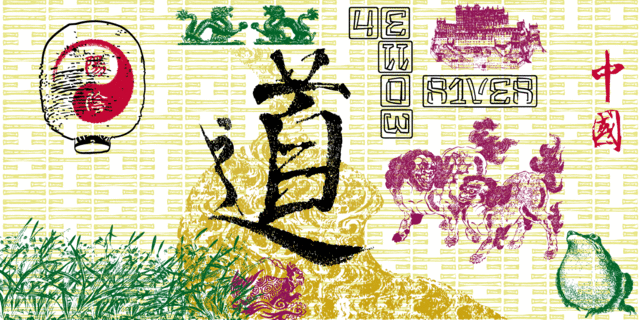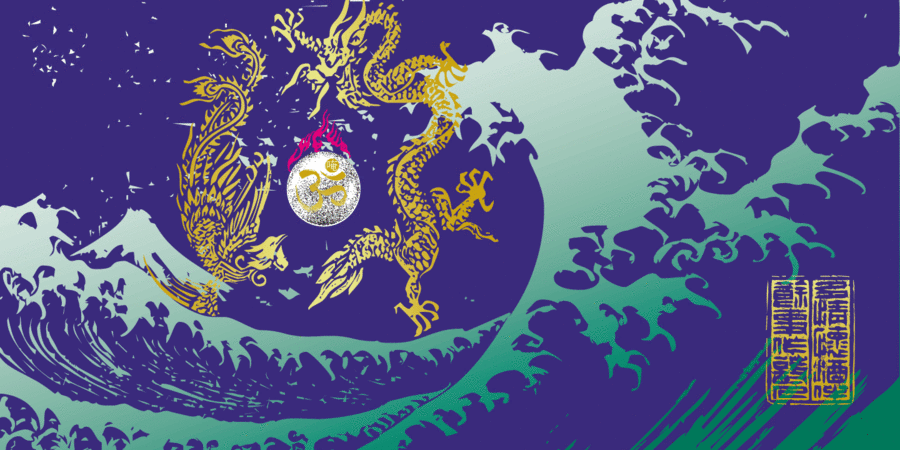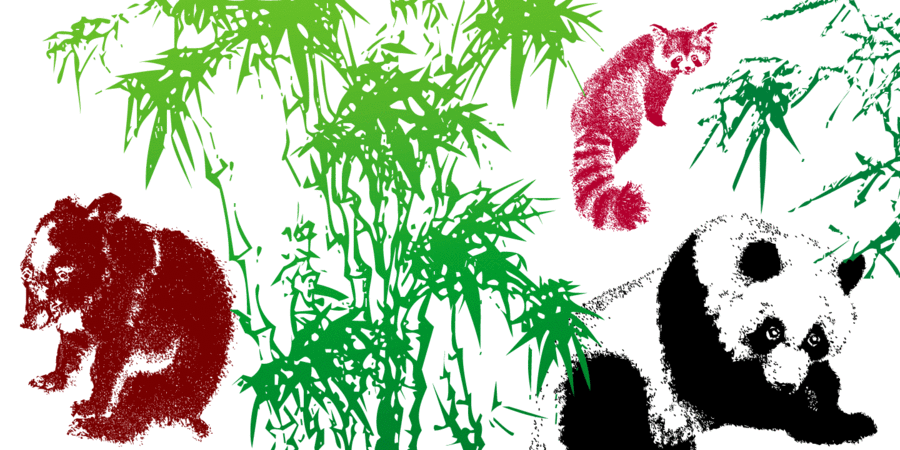
Modern pi fonts are a revival of the print tradition of polytypes on the modern digital level. The proposed font contains more than 600 glyphs drawings based on the culture and art of the Far East and Southeast Asia: landscapes, statures, animals, plants, typical objects and dishes. The composition also includes Chinese and European figures of various widths, which, together with brackets, allow you to add numbers in a frame that look like stamps. There are a number of natural and artificial textures and traditional ornaments assembling into endless decorative patterns. Also in the font there are signs of the eastern horoscope, trigrams, examples of scripts and architectural monuments of different countries of the region. All this contributes to the universal use of the font for the design of any products of the relevant subject: calendars, horoscopes, books, magazines, guides, menus, posters, textiles, interiors etc. The typeface was designed by Victor Kharik in 2019.
archaic, ancient, tribal, cultural, artistic, man-made, traditional, historical, heroic, beautiful, distinctive, masterful, refined, handicraft, craft brewed, fairy, vegetable, natural, alive, wooden, Chinese, Asiatic, Japanese, summer, coloured, Oriental, southern, wild, dynamic, appetizing, uneven, autumn, Artisanal, exotic, forest, earthen
mythology, museum, culture, art, tattoo, history, literature, epos, decoration, craft, fantasy, tale, nature, food, restaurant, dinner, interior, clothes, tourism, religion, temple, painting, the Dragon, game, cards, tree, flowers, gifts, tiger, sword, ramen, meat dumplings, handmade, garden, fall, summer, Spring, panasia, fish, legend, souvenir, landscape Typeface exhibits stylistic traits: